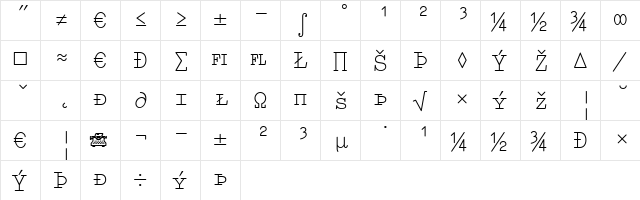
Elementa SC-Expert Medium
| Foundry | Mindaugas Strockis, . Published by FontShop International. FontFont Release |
Design Context for Elementa SC-Expert Typeface
Elementa SC-Expert offers clean, dependable letterforms without strong stylistic allegiance, making it a practical choice for designers who need flexibility.